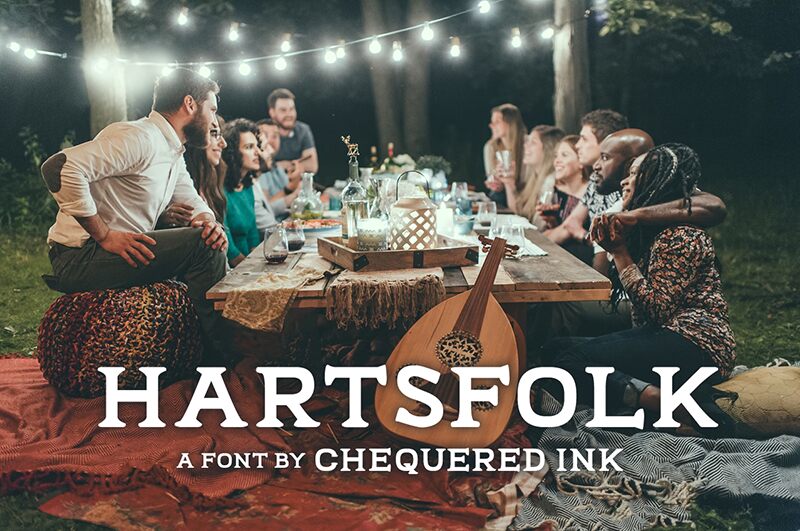
Hartsfolk
Hartsfolk font by Chequered Ink is a free display font with a retro aesthetic that brilliantly combines strong structure and traditional elegance. This creation’s bold presence displays true vintage charm with its simplicity and outstanding visual design, allowing viewers to instantly absorb the intricacy of each character.
Use it for brochures, book covers, posters, social media posts, branding designs, headlines for newspapers or magazines, comic designs with colorful illustrations, cartoons and animated scenes for film making projects that call for child-centered productions.